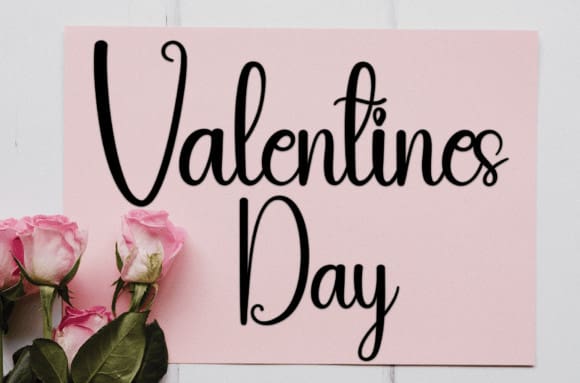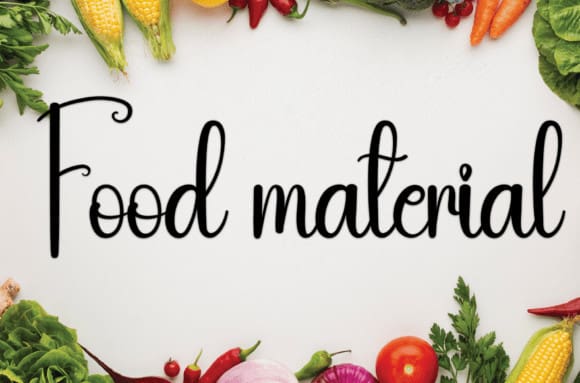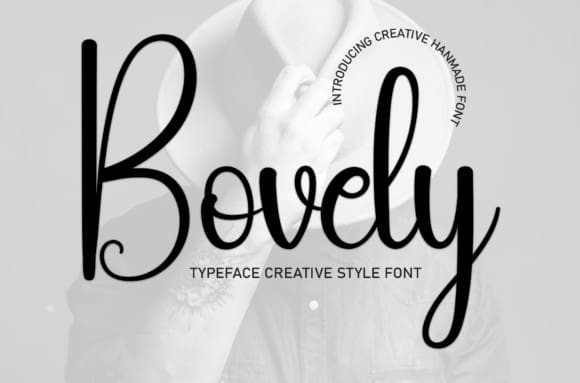
Bovely Script Font
Bovely Script Font is a sweet handwritten font. Friendly and cute, this font is ideal for writing wedding invitations, cards, or any other design that might need a fun touch!